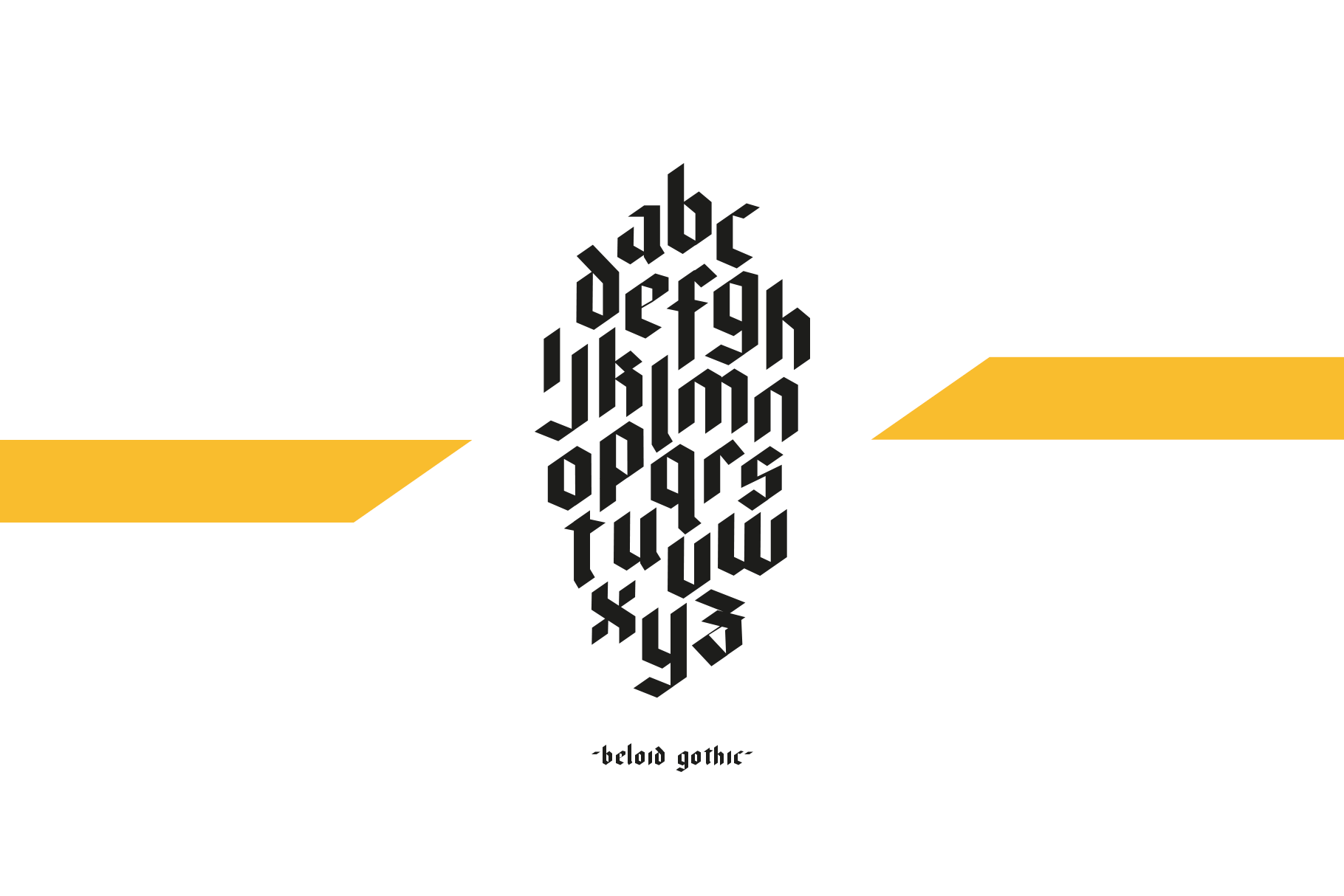
Beloid Gothic is a modern blackletter typeface. Strong and geometric with a fraktur style using a 35 degree angled nib. Taking inspiration from medieval scriptures Beloid was designed with bold titles and logotype in mind. A statement font.